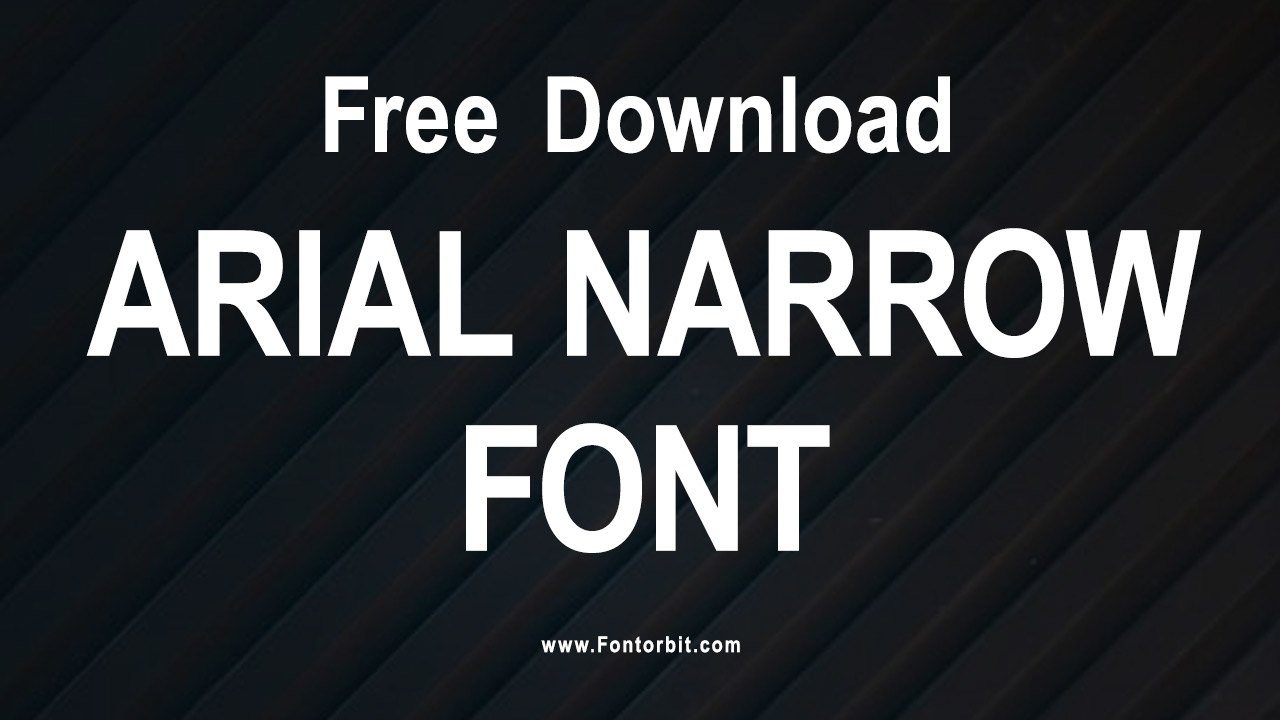
Arial Narrow is a sans-serif typeface designed by Robin Nicholas and Patricia Saunders. This font was released by Monotype in 1982 as a condensed version of the Arial font family.
Arial Narrow has a sleek and compact design, making it suitable for situations where space is limited but clarity is essential.
Arial Narrow Family Includes
This font belongs to the widely known Arial font family. It includes a range of styles and weights that offer flexibility for different design needs. The condensed nature of Arial Narrow makes it ideal for fitting text into tight spaces without compromising readability.
- Arial Narrow Regular
- Arial Narrow Italic
- Arial Narrow Bold
- Arial Narrow Bold Italic
Notable Uses Of Arial Narrow
Arial Narrow is versatile and commonly used across various mediums. Its narrow design makes it particularly useful in situations where space is limited:
- Subheadings
- Advertising materials
- Brochures
- Pamphlets
- Banners
- Web and digital designs
- Printed Materials
- Presentations
Arial Narrow remains a popular choice for designers due to its compact, readable style. Its use in various applications, from print to digital design, showcases its flexibility and timelessness. Whether used for headlines, brochures, or digital interfaces, Arial Narrow delivers a clean, professional appearance that stands out.
1.Is Arial Narrow Suitable For Body Text?
It’s better suited for headlines or short paragraphs due to its condensed design.
2.What Is The Difference Between Arial And Arial Narrow?
Arial Narrow has a more compact, condensed appearance than the standard Arial.
3.Does Arial Narrow Come In Multiple Weights?
Yes, it includes Regular, Italic, Bold, and Bold Italic styles.
6.What Makes Arial Narrow Popular?
Its space-saving design and readability make it a popular choice for compact text layouts.